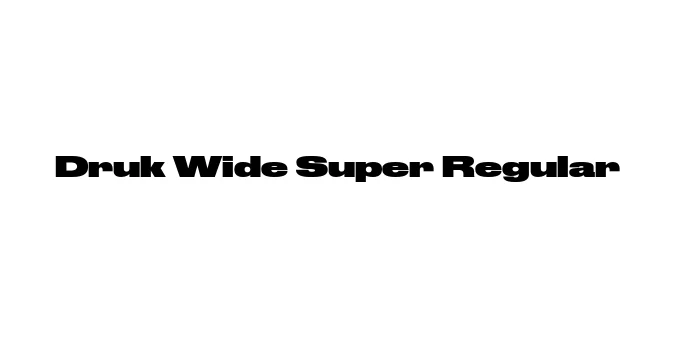
Druk Wide Super Regular
Designed by Berton Hasebe
| Category | Display / Sans Serif |
| Designer | Berton Hasebe |
Druk Wide Super Regular is a definitive display typeface designed by Berton Hasebe and released through Commercial Type in 2014. Part of the broader Druk family, this specific variant was inspired by the extreme graphic proportions seen in mid-20th-century design, particularly the Dutch magazine Wendingen. It deliberately ignores traditional typographic constraints by pushing the width and weight to their absolute limits, resulting in a brutalist and uncompromising aesthetic.
The Super Regular weight represents the pinnacle of horizontal expansion within the collection. It is widely recognized for its high-impact presence in editorial design, sports branding, and fashion advertising. By offering maximum visibility and a modern architectural structure, it has become a go-to choice for designers who need to fill space with authority and create a bold, unforgettable visual statement.
Druk Wide Super Regular Best Uses
Perfect for high-impact magazine headlines and expressive cover layouts.
Used to create strong, authoritative logos and contemporary corporate identity systems.
Excellent for hero sections, bold web banners, and high-energy social media typography.